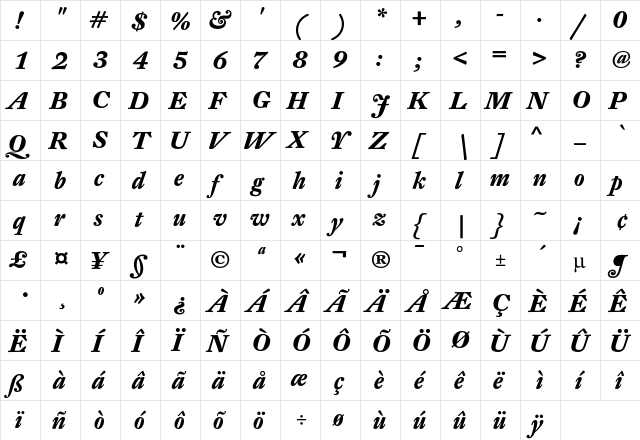
DTLFleischmannT BoldItalic Font Preview
DTLFleischmannT BoldItalic
Design Context for DTLFleischmannT Typeface
DTLFleischmannT takes a measured approach to typography — its balanced proportions and neutral character make it a reliable workhorse for both digital and print work. The slanted form adds forward momentum and visual energy. Its bold stroke weight gives it real presence on the page.
Pro Tip: Use DTLFleischmannT for emphasis, pull quotes, and subheadings where its slanted energy can add rhythm to the layout.